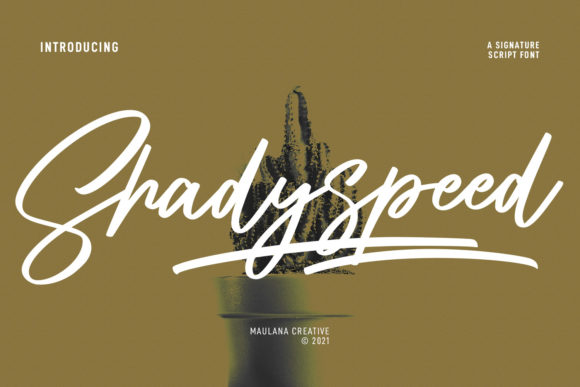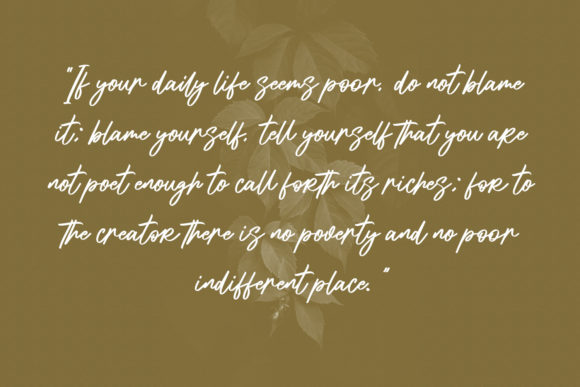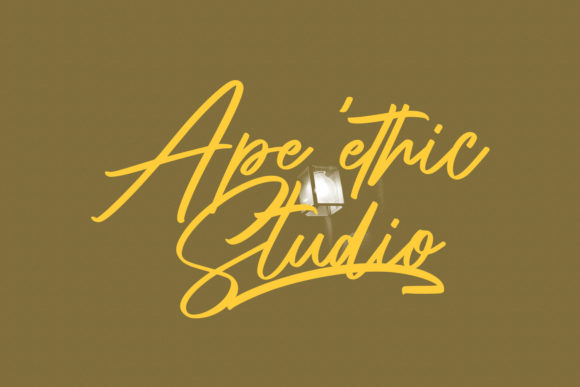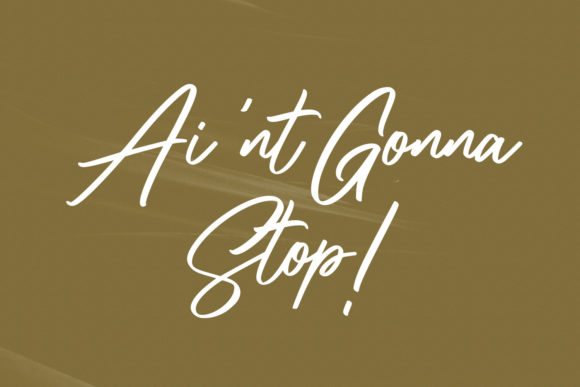
Shadyspeed Script Font Font
About the Shadyspeed Script Font Font
Meet Shadyspeed Script Font Font, a stunning font that brings a touch of elegance and professionalism to any design. Shadyspeed is a signature script font. In contrast, regular stroke, fun character with a bit of ligature and has two files lowercase alternates and swashes. This font is a perfect fit for logo design, Social media, Movie Titles, and Books Titles. Make a stunning work with Shadyspeed font!
Shadyspeed Script Font Font Usage Examples
Shadyspeed Script Font Font Example